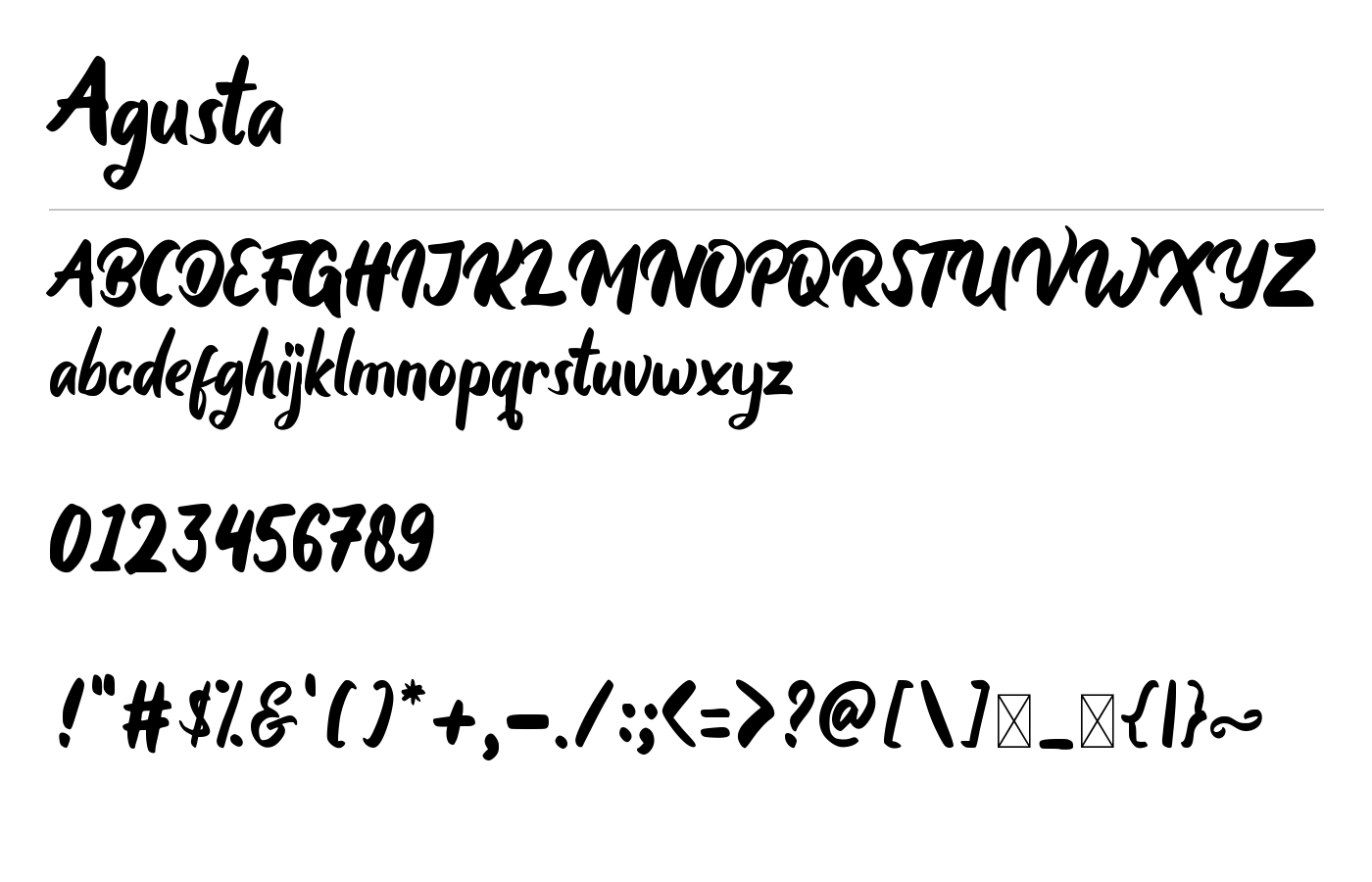
Agusta is a lively and bold script font with a brushstroke style that combines casual charm and strong personality. Its dynamic letterforms and medium contrast give it an energetic, handcrafted feel, making it perfect for eye-catching headlines, logos, and creative branding that want to convey warmth and creativity. This font works well for artistic projects, packaging, and any design seeking a friendly yet confident handwritten touch.
Agusta Font
About Agusta Font
| Font family | Agusta Font |
| Designer | Ikrar Bey Khubaib |